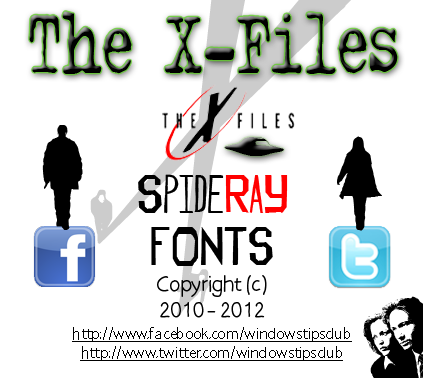
I have always wanted to create a real The X-Files fan-font based on the 9 season TV show, and the 2 feature films already released, so with the advent of the third movie to complete of this Trilogy, I give to you my latest font. For the fully kerned OTF embeddable commercial version of this font please visit my Etsy Store @ http://etsy.me/2dl4DPK |